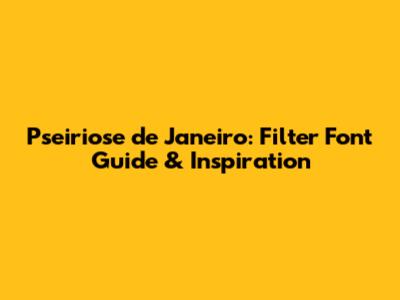
- Clean & Modern: Pair Pseiriose de Janeiro with a simple sans-serif font like Montserrat or Lato. Add a subtle shadow or glow filter to Pseiriose to give it a touch of depth without overwhelming the clean aesthetic.
- Vintage Vibes: Combine Pseiriose de Janeiro with a classic serif font like Garamond or Baskerville. Experiment with a distressed or textured filter to give the text a worn, vintage feel. Think old travel posters or antique maps!
- Bold & Playful: Use Pseiriose de Janeiro for headlines and pair it with a quirky handwritten font for body text. Add a vibrant color overlay or a halftone filter to create a bold and playful look.
- Elegant & Refined: Pair Pseiriose de Janeiro with a delicate script font for a touch of elegance. Add a subtle gradient overlay or a light blur filter to create a soft and refined look.
- Monochromatic Magic: Use various weights and sizes of Pseiriose de Janeiro itself, and add a blur effect.
- Brazilian Tourism Posters: Imagine posters showcasing Rio's iconic landmarks with text that feels both elegant and vibrant, maybe with a subtle阳光 filter or a texture reminiscent of Copacabana's mosaic sidewalks.
- Music Album Covers: Picture album covers for Brazilian music artists, using fonts with a similar playful and energetic feel, perhaps with a color gradient or a halftone effect.
- Fashion Magazine Spreads: Visualize fashion magazine layouts featuring Brazilian designers, with text that exudes sophistication and style, maybe with a subtle drop shadow or a light blur filter.
Hey guys! Ever stumbled upon a font that just screams a specific vibe? Maybe it reminds you of a sunny beach, a bustling city, or a vintage movie? Well, buckle up, because we're diving deep into the world of Pseiriose de Janeiro, exploring how filter fonts can totally transform your designs, and getting inspired by this unique typeface.
What are Filter Fonts?
Before we get all cozy with Pseiriose de Janeiro, let's break down the basics: What exactly are filter fonts? Simply put, they're fonts that use filters and effects to create a specific look and feel. Think of it like adding an Instagram filter to your text – you can instantly change the mood and aesthetic. This can range from adding a subtle shadow or glow to creating a completely distorted and experimental style. Filter fonts are super versatile, offering designers a quick and easy way to add visual interest and personality to their projects. They can evoke different emotions, highlight specific themes, and make your text stand out from the crowd. In essence, filter fonts are powerful tools that add depth and character to typography, enhancing the overall design and grabbing the viewer's attention.
Filter fonts are particularly useful when you want to convey a specific era or mood. For example, a font with a retro filter might instantly transport your audience back to the 1980s, complete with neon lights and synth-pop vibes. Similarly, a grunge filter can give your text a raw, edgy feel, perfect for designs that need a touch of rebellion. The possibilities are endless! These fonts work by applying various effects such as blur, distortion, texture overlays, and color gradients directly to the letterforms. This allows designers to create unique and visually appealing text without needing extensive knowledge of graphic design software. Filter fonts can be easily integrated into various design platforms like Adobe Photoshop, Illustrator, and Canva, making them accessible to both professional designers and amateur enthusiasts. By experimenting with different combinations of filters and effects, you can create a signature typography style that sets your work apart and captures the essence of your brand or project. So next time you’re looking to add a bit of flair to your design, consider using a filter font to achieve that perfect look.
Unpacking Pseiriose de Janeiro
Okay, now let's zoom in on our star: Pseiriose de Janeiro. While the name might conjure images of sun-kissed beaches and vibrant Brazilian culture, it's important to understand what this specific font is and what makes it tick. Is it a font with a specific filter built-in, or is it a font that pairs well with certain filter effects? This distinction is crucial. Pseiriose de Janeiro is a captivating font that beautifully encapsulates the essence of Rio's vibrant culture and stunning landscapes. Its design features elegant curves and playful serifs that evoke the fluidity of ocean waves and the exuberance of samba rhythms. The font's unique character is further enhanced by its subtle use of texture and shading, which adds depth and visual interest. Pseiriose de Janeiro is incredibly versatile, making it ideal for a wide range of design applications. Whether you're creating a travel brochure, a music poster, or a stylish website, this font will bring a touch of Brazilian flair to your project.
Consider the visual elements that define Rio de Janeiro: the lush greenery of the rainforest, the rhythmic patterns of the city's iconic sidewalks, and the bright, festive colors of its Carnival celebrations. Pseiriose de Janeiro captures these elements through its organic shapes, dynamic lines, and vibrant energy. The font's designers likely drew inspiration from the city's architectural landmarks, such as the Christ the Redeemer statue and the Sugarloaf Mountain, incorporating subtle details that reflect their grandeur and elegance. Moreover, the font's readability and legibility make it suitable for both headlines and body text, ensuring that your message is conveyed clearly and effectively. This makes Pseiriose de Janeiro a valuable asset for any designer seeking to infuse their work with a touch of Brazilian charm. By using this font, you can create designs that not only look beautiful but also tell a story about the vibrant and captivating city of Rio de Janeiro. So go ahead and explore the possibilities of Pseiriose de Janeiro, and let its unique character inspire your next creative endeavor.
Font Pairings and Filter Effects for Pseiriose de Janeiro